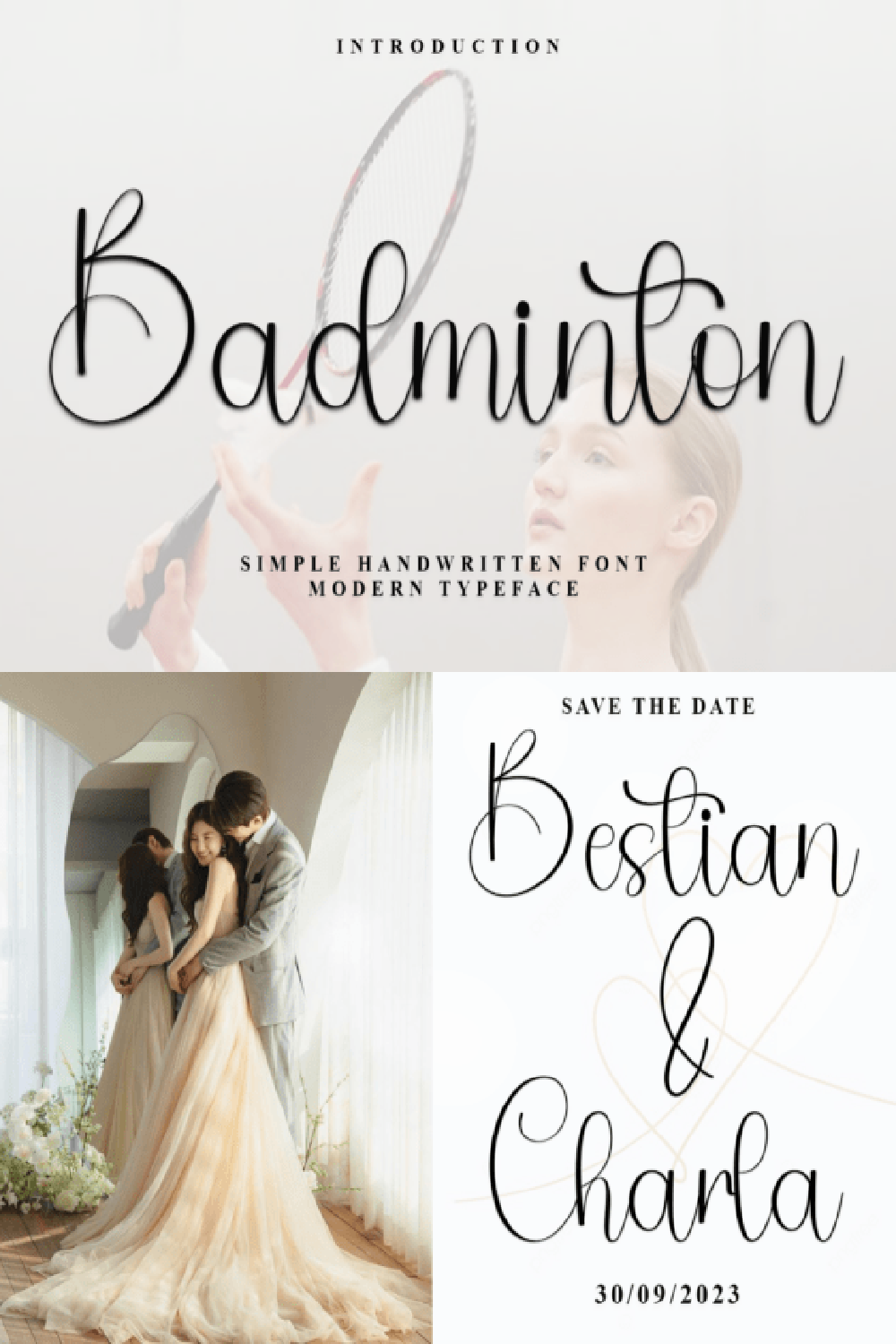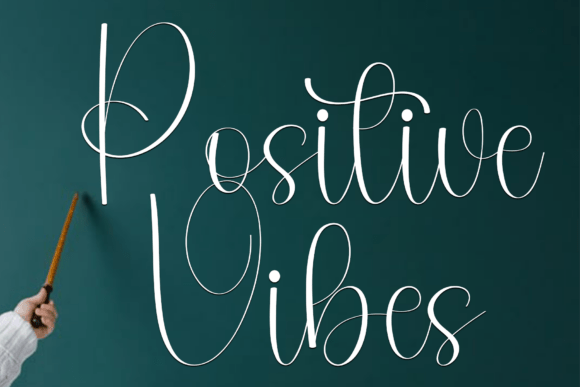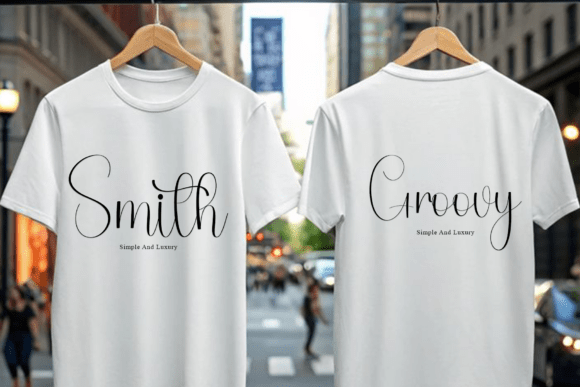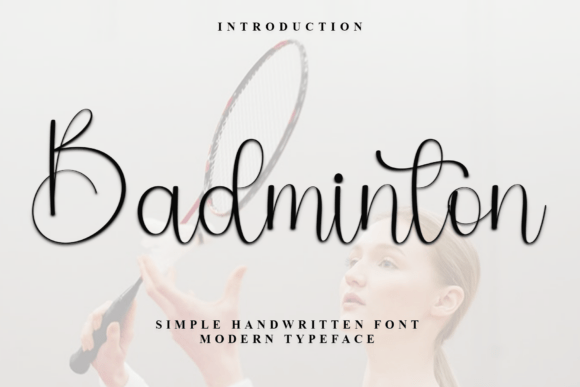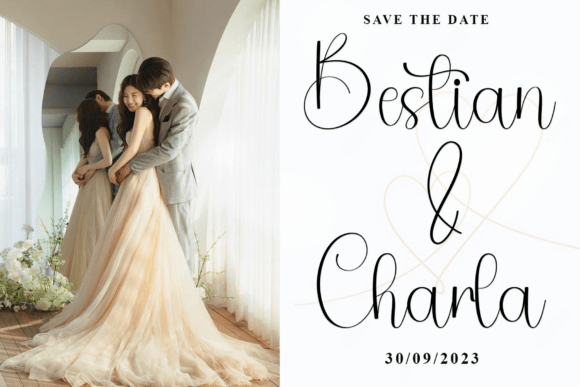
Badminton Font
About the Badminton Font
Get ready to be inspired by Badminton Font, a fresh and dynamic typeface for modern creators. Badminton is a beautiful and eye-catching font designed with a soft, unique touch. Its distinctive strokes give it a special character, making it meaningful and versatile for future use. With various characters, it’s perfect for design projects, crafts, and other creative works.
Compatible with various applications, including Windows and open-source platforms, this natural font style is ideal for a wide range of products. It will enhance your designs, making them appealing to many audiences across different artistic and creative fields.